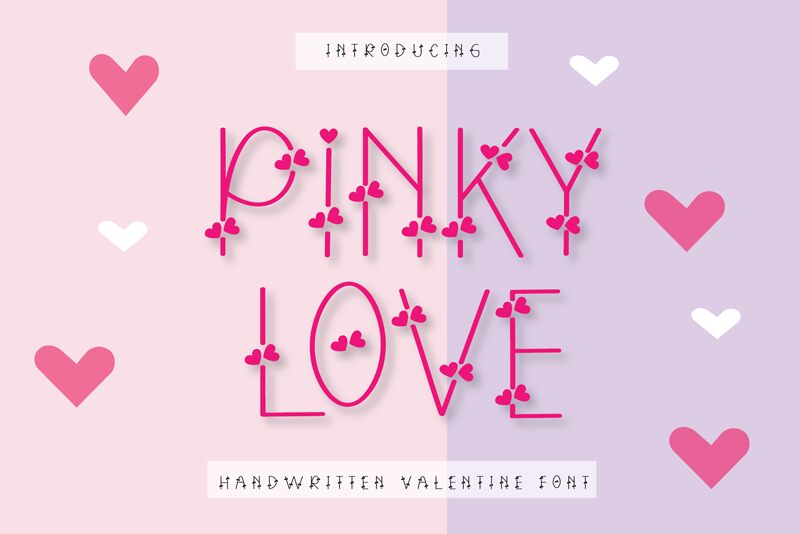
Pinky Love font by hl_studio is a free font that captures a romantic and whimsical essence, perfectly resonating with its warm and lively name. It embraces a modern aesthetic with a youthful touch, conveying romance in an integrative manner. Decorative elements such as heart motifs make it expressive, informal, and suitable for affectionate and uplifting themes. It is simply perfect for titles or logos, tactile stationery projects, quotes and any other typographic designs you might have in mind.
Pinky Love can be used in a wide range of designs, especially ones related to weddings and events. Decorate your flyers, banners, invitations, cards, and printed gift items with this delight. Alternatively, it can be incorporated into patterns and fabrics for the fashion and textile industry. If you are working on an online project, it can be directly used on banners, online journal covers, and more.